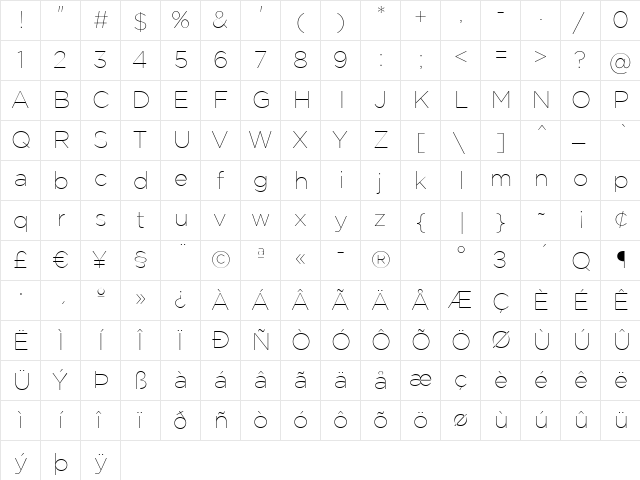
Gotham Thin Regular
Design Context for Gotham Thin Typeface
Gotham Thin offers clean, dependable letterforms without strong stylistic allegiance, making it a practical choice for designers who need flexibility. Its slender proportions lend an understated elegance to any composition.
Pro Tip: Pair Gotham Thin with a font of contrasting weight or personality to build a more expressive typographic hierarchy.